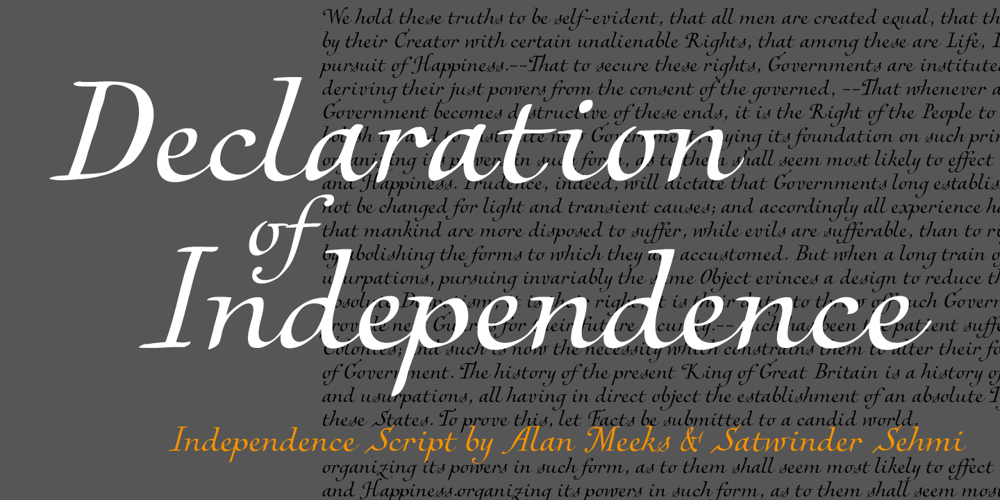
Independence Script Font Family was designed by Satwinder Sehmi, Alan Meeks and published by Alan Meeks. Independence Script contains 1 styles and family package options. Independence Script, designed by Alan Meeks and top British calligrapher Satwinder Sehmi, is an old style calligraphic handwritten script. The name is derived from the Declaration of Independence of which the font bears a slight resemblance.